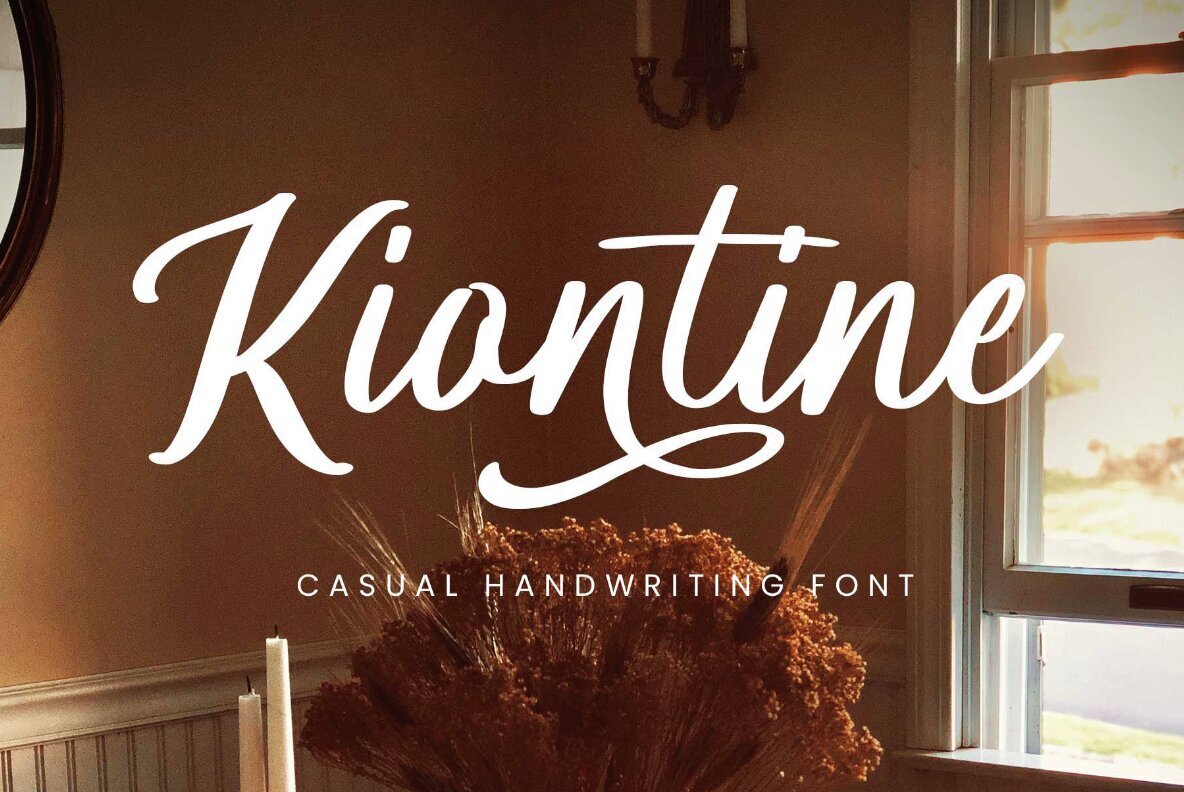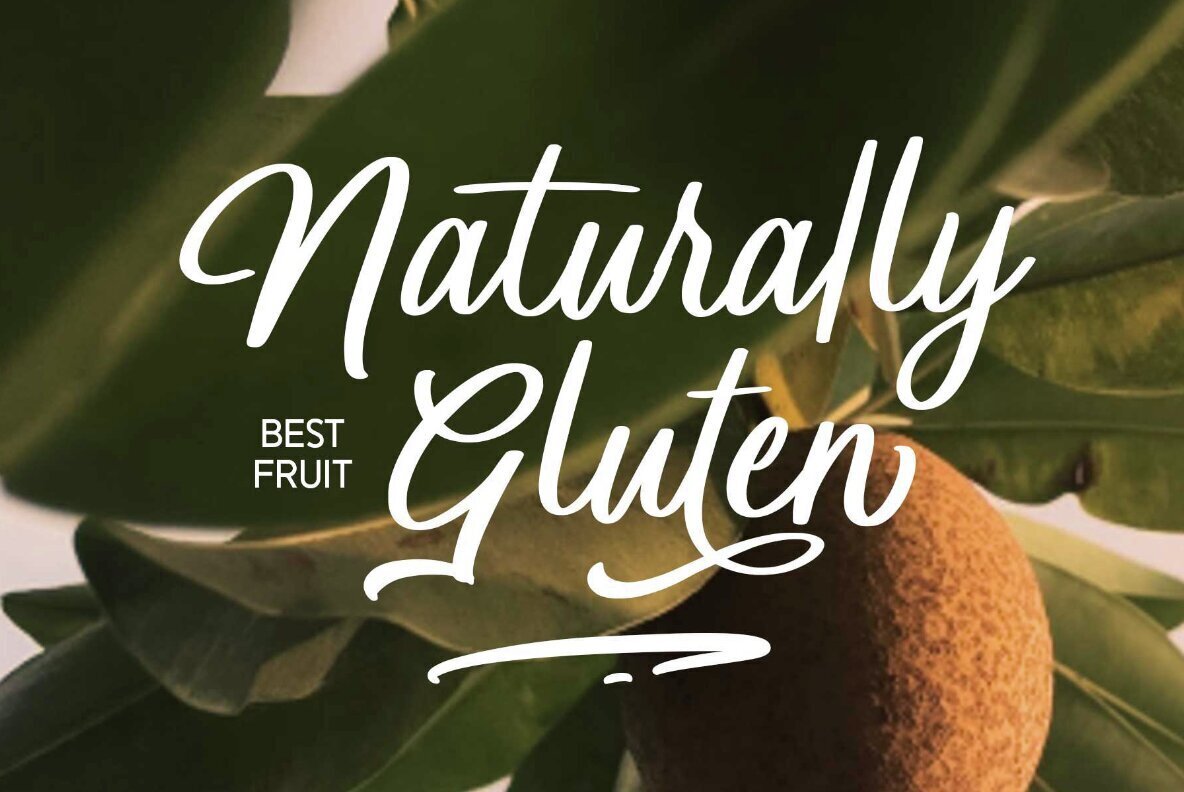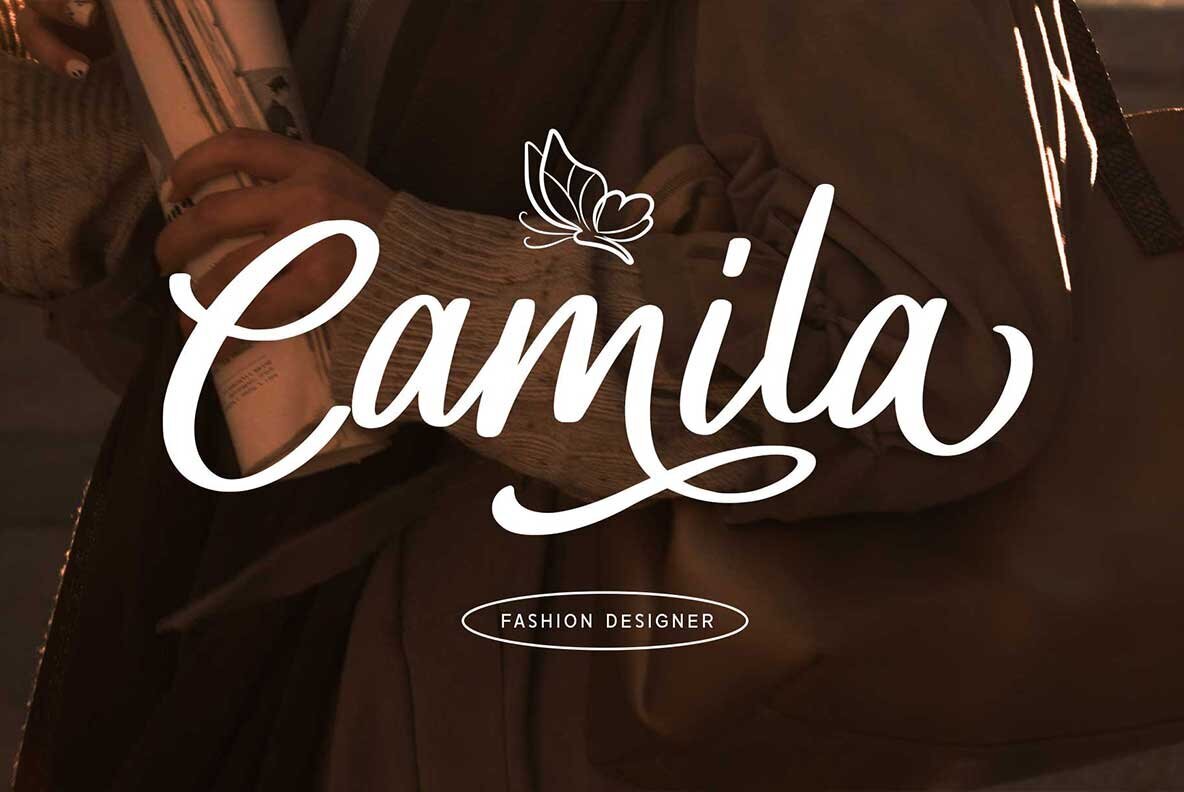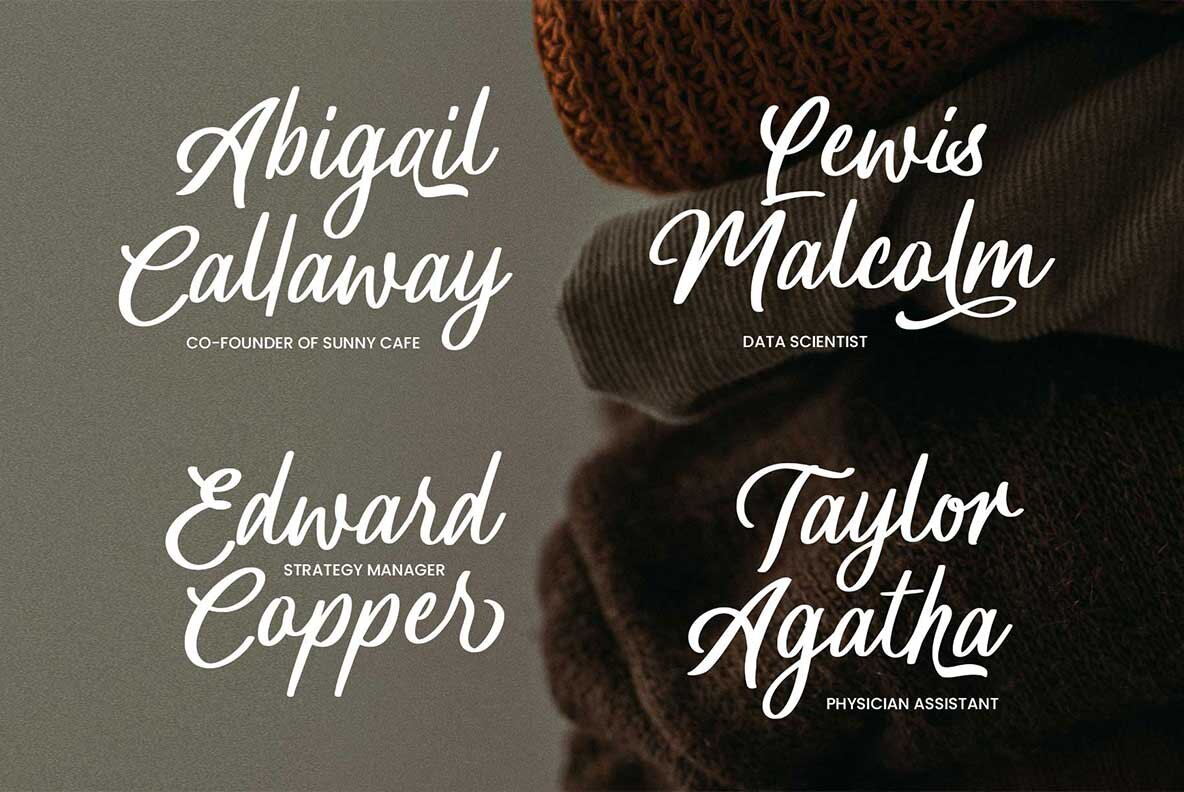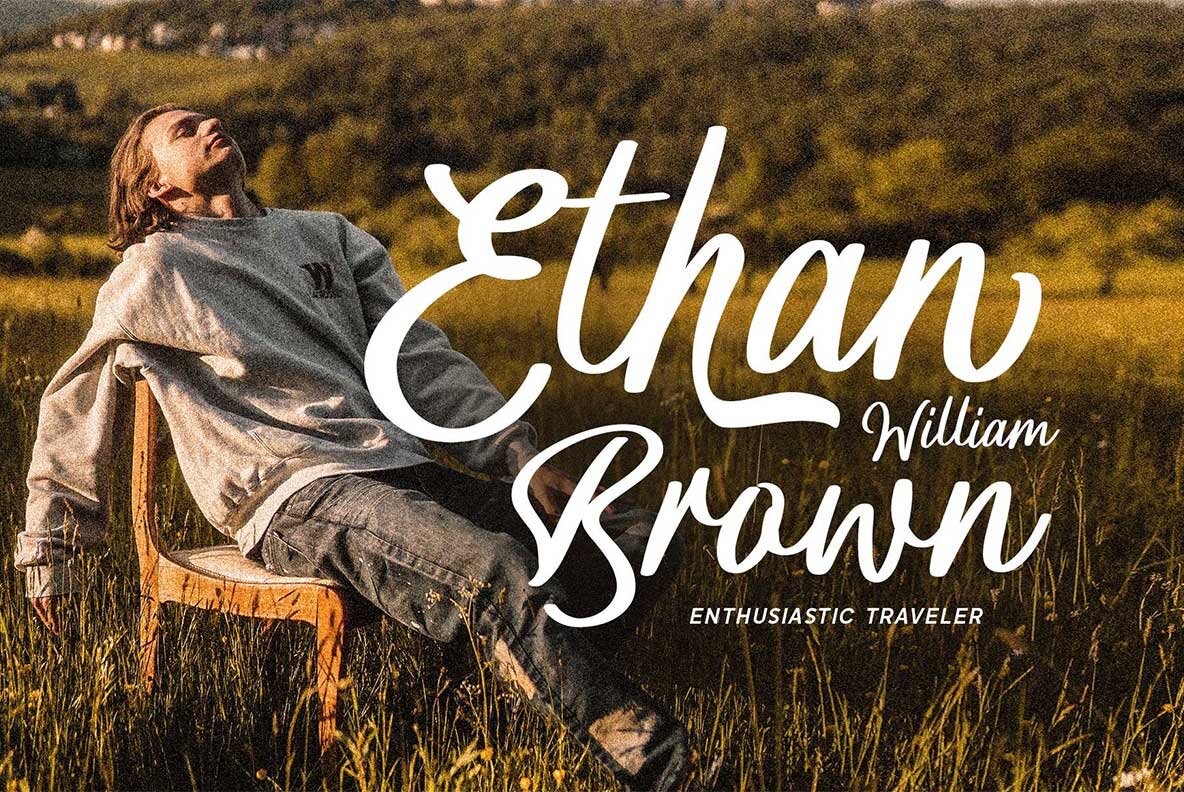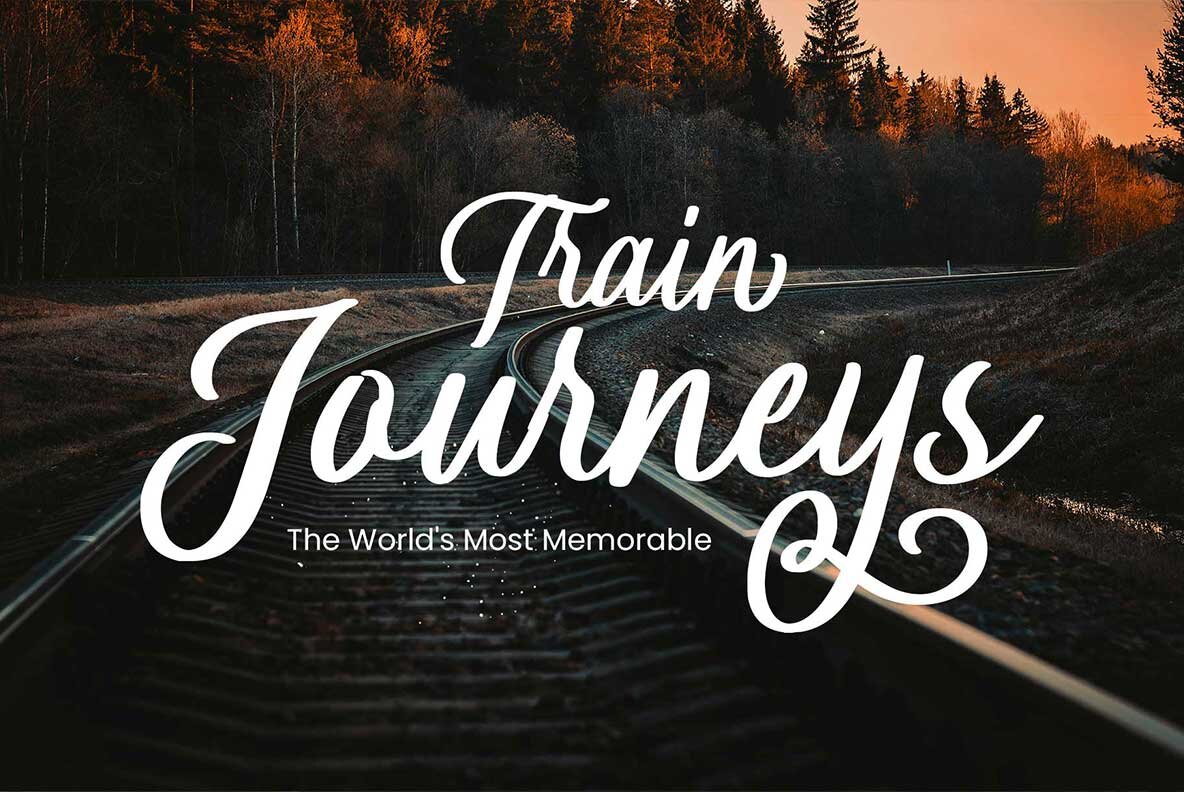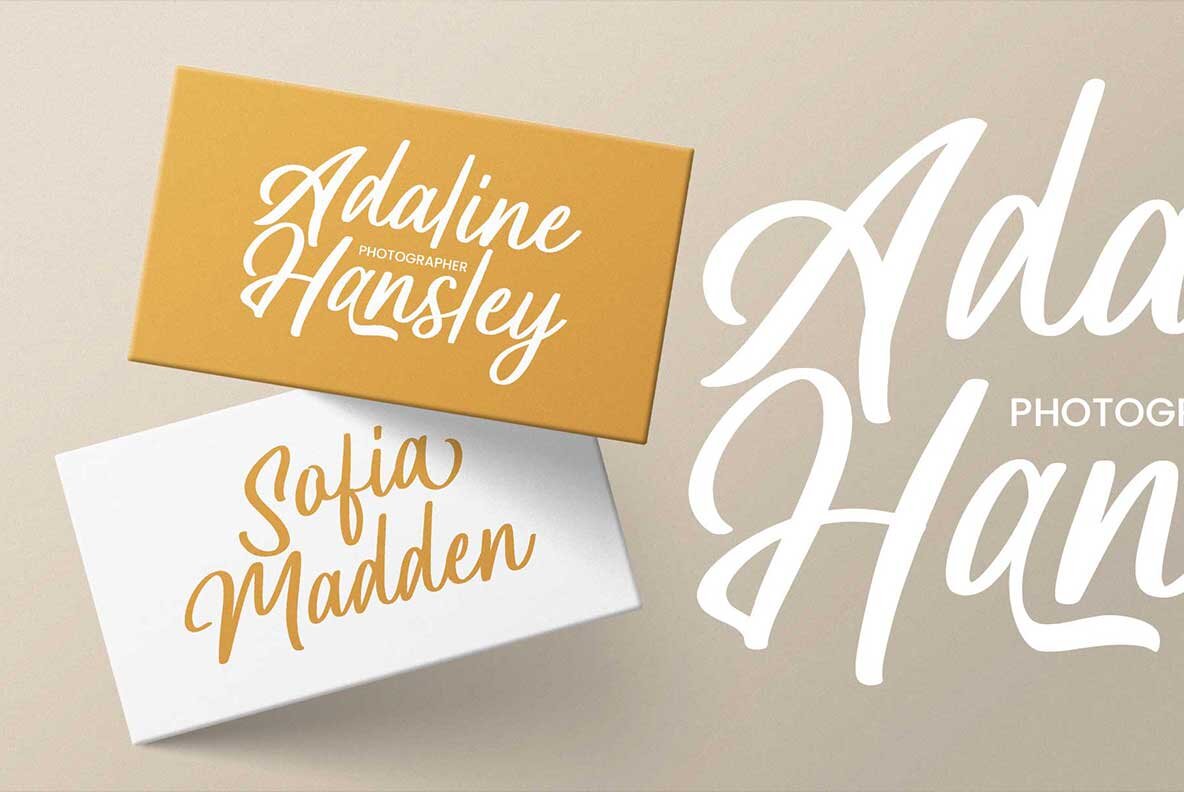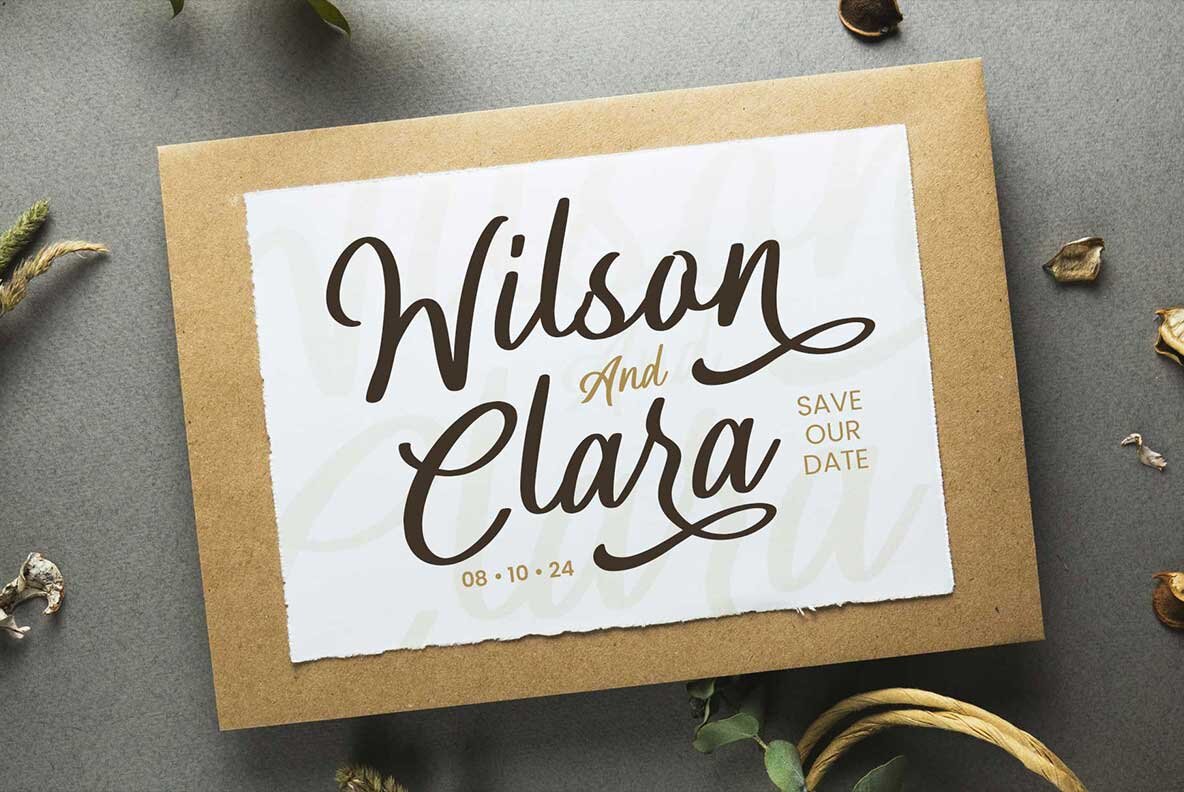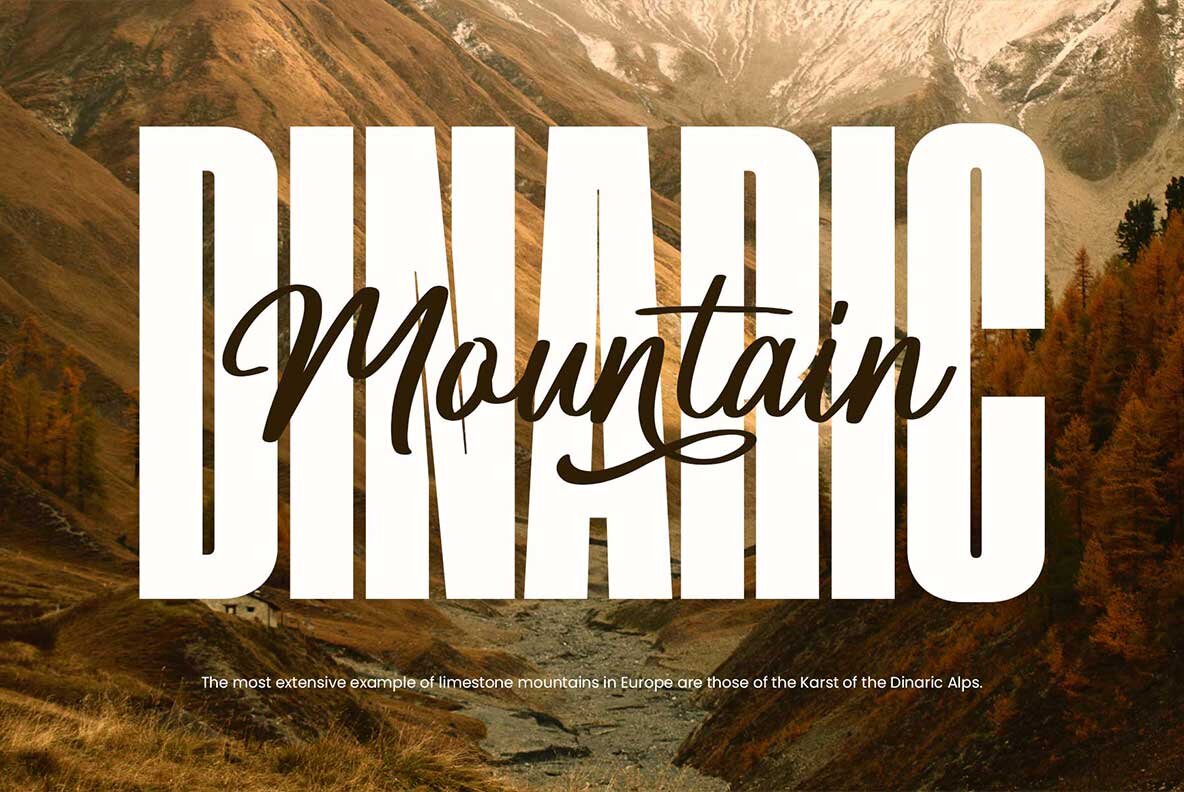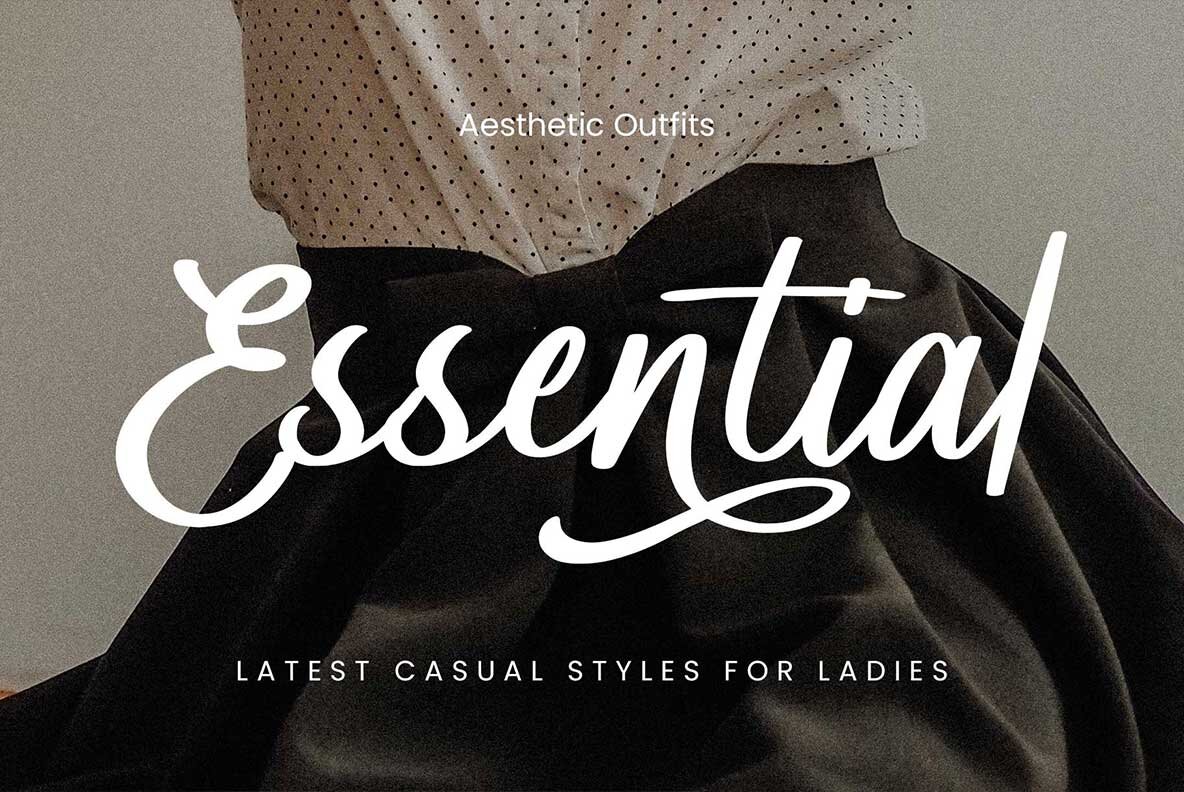
Kiontine Font
Kiontine Regular
Kiontine brings a lively handwritten style, designed with the fluid feel of natural writing using a digital brush. Its minimalist thickness highlights a romantic and feminine character, making it a go-to choice for projects that call for warmth and simplicity. Each letter maintains the uniqueness of handwritten forms, ensuring every application feels personal and distinct.Kiontine: Joyful Handwritten Font for Elegant Designs
Kiontine includes a full set of uppercase and lowercase characters, complemented by special features for expressive typography. Thoughtfully crafted alternates and ligatures allow effortless mixing and matching, helping you create custom typographic looks for any design challenge. This font excels on logos, quotes, book covers, flyers, wedding invitations, cards, labels, taglines, and more.Features